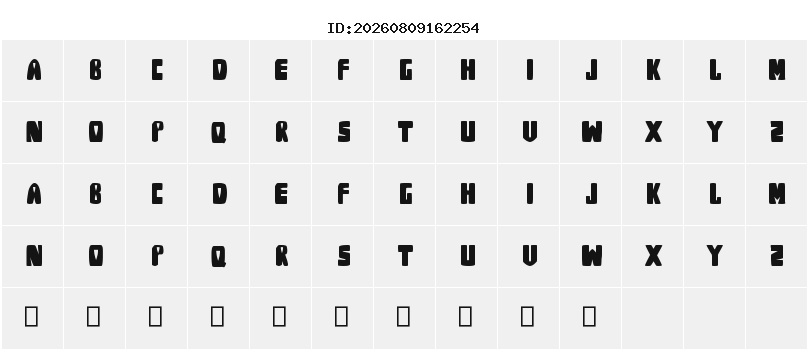
Parrot Leaf Preview
• Font Name: Parrot Leaf
• Full Font Name: Parrot Leaf
About Parrot Leaf.ttf
Parrot Leaf.ttf is a modern, elegant sans-serif font designed for ultimate readability and visual harmony. Perfect for branding, headlines, web design, and print materials.